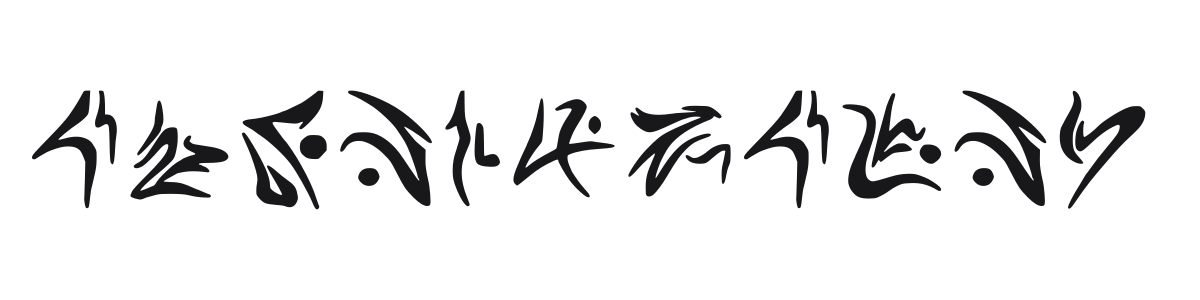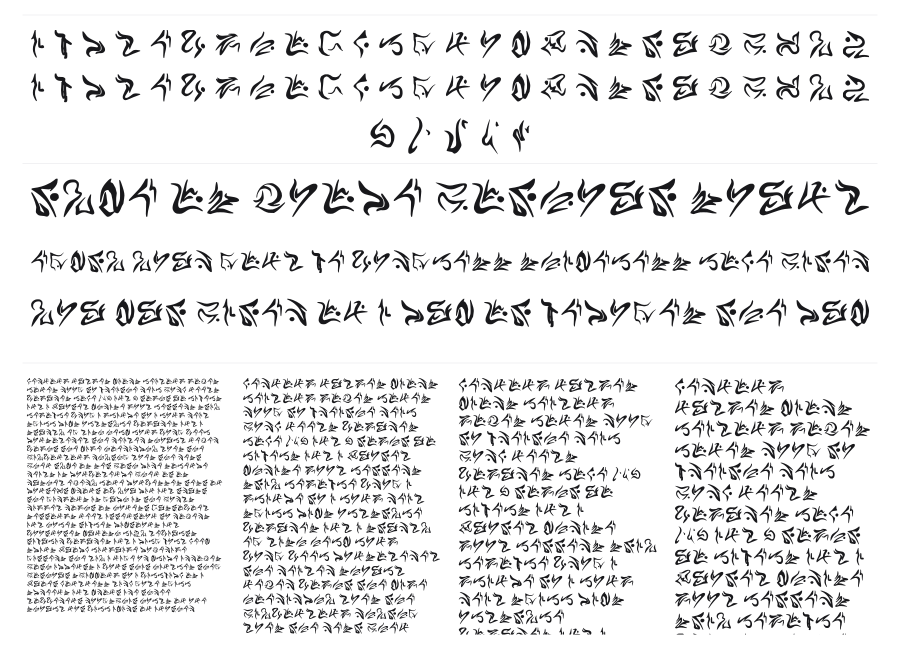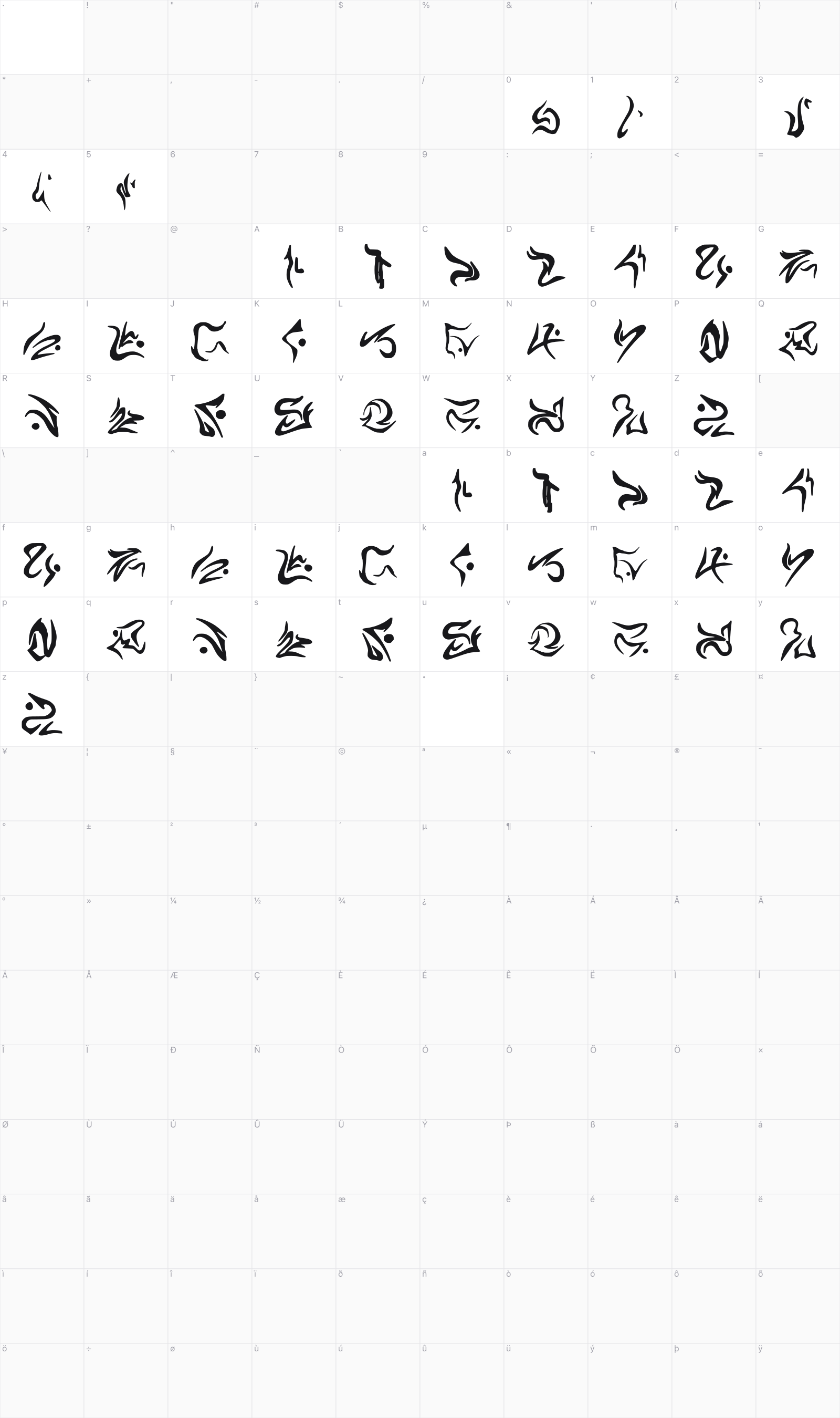
Estrangeiro
Estrangeiro is an invented alien script typeface built from flowing calligraphic strokes that resemble no known writing system. Each character carries dramatic stroke contrast and complex curling forms, giving the font a handcrafted, arcane quality. The author notes the alphabet is still being discovered and updated as new characters are revealed.